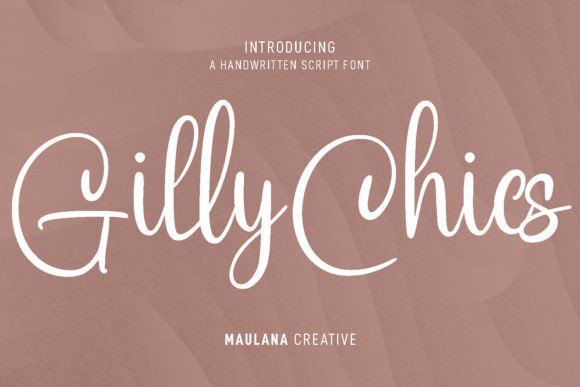
Gilly Chics Font: A Love Story in Every Letter
Step into a world of elegance, charm, and timeless beauty with Gilly Chics, a captivating script font that dances on the page like a love letter. Its graceful swirls and enchanting curves capture the essence of romance, inviting you to express your heartfelt emotions in every word. Gilly Chics is not just a font; it's an experience that transforms your designs into works of art.
With its modern and classy style, Gilly Chics is the perfect choice for those who seek beauty and sophistication in their typography. From wedding invitations and branding to social media posts and stationery, Gilly Chics adds a touch of magic to any project. Its versatility allows you to explore endless creative possibilities, making it the perfect companion for designers, bloggers, and creative entrepreneurs.
Gilly Chics is the epitome of romance. Its delicate strokes and flowing lines evoke a sense of love, making it the ideal font for wedding designs. Create stunning invitations, save-the-dates, and menus that capture the joy and excitement of your special day. Let Gilly Chics tell your love story in a way that words alone cannot express.
But Gilly Chics is not limited to the realm of weddings. Its timeless beauty and versatility make it suitable for a wide range of projects. Imagine creating logos that exude elegance, business cards that leave a lasting impression, and social media posts that captivate your audience. Gilly Chics is the font that transforms the ordinary into the extraordinary, turning your creative visions into reality.
As a handwritten script font, Gilly Chics possesses an inherent charm and warmth that draws people in. Its friendly and inviting style makes it perfect for branding and marketing materials. Create a strong and lasting impression on your customers by incorporating Gilly Chics into your logo, website, and marketing campaigns. Let Gilly Chics be the voice of your brand, communicating your message with sophistication and grace.
Gilly Chics is not just a font; it's a symphony of letters that harmonize to create a visual masterpiece. Its beauty and versatility make it the perfect choice for designers, bloggers, and small business owners who want to elevate their creative projects to new heights. Experience the magic of Gilly Chics today and embark on a journey of creativity and inspiration.